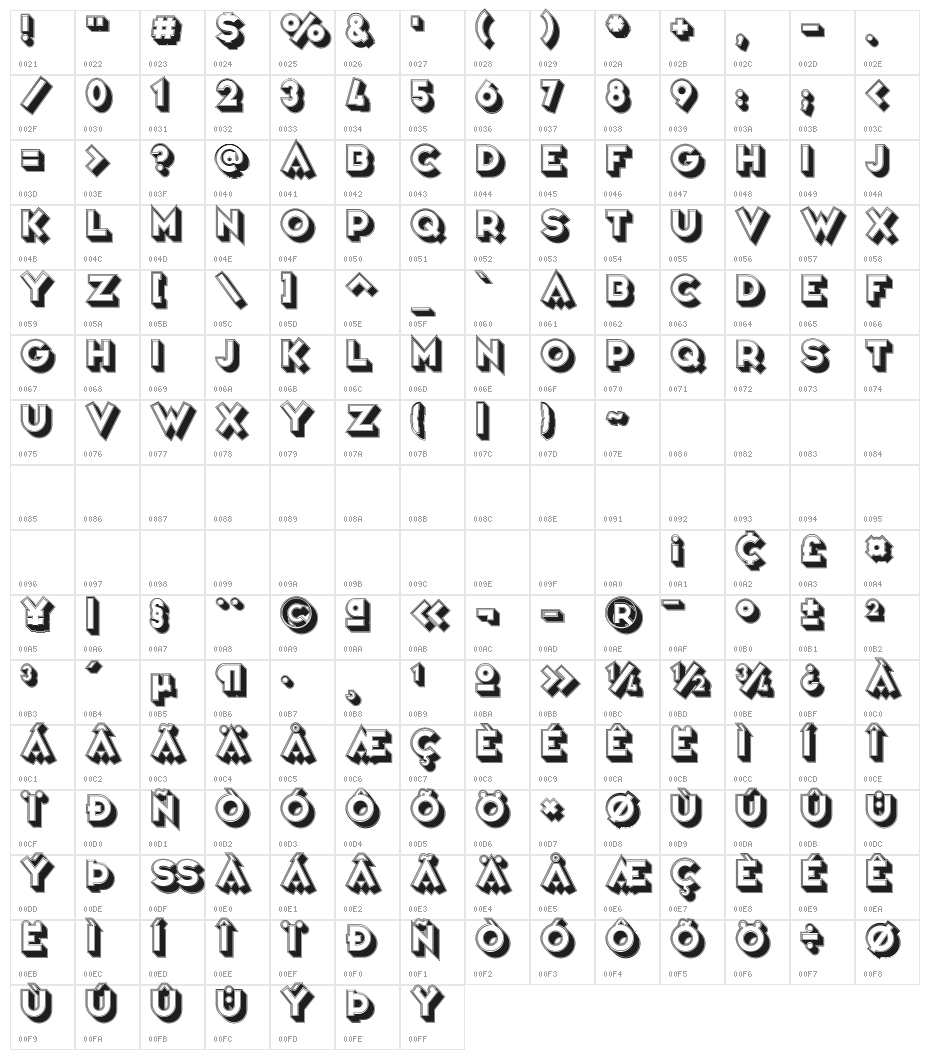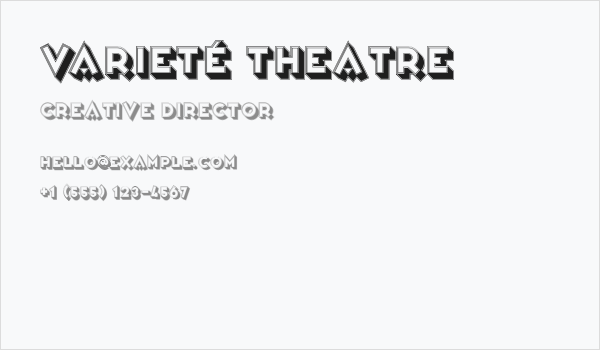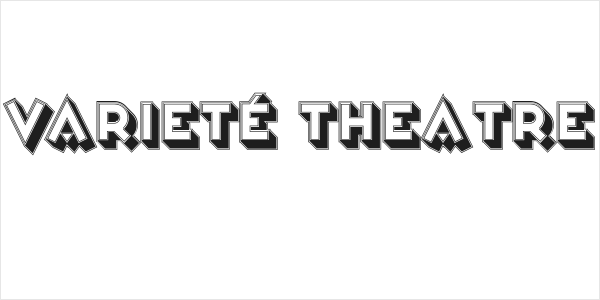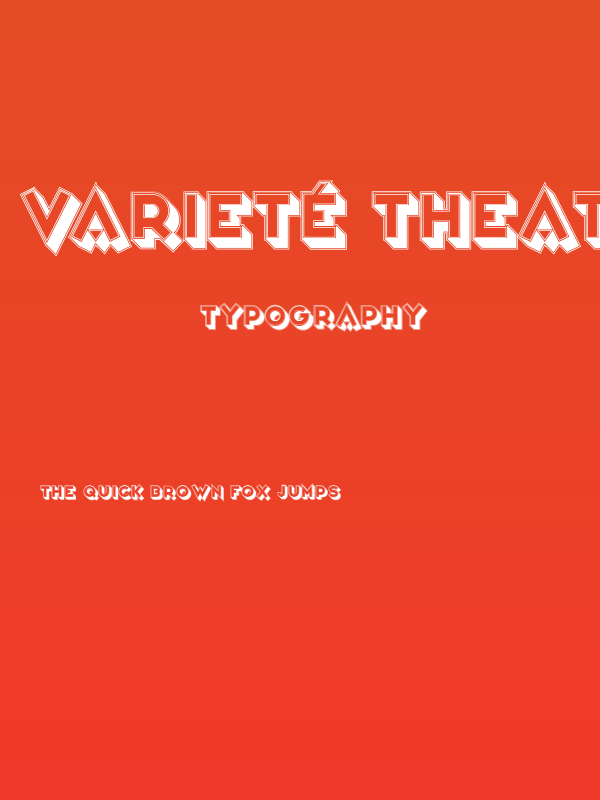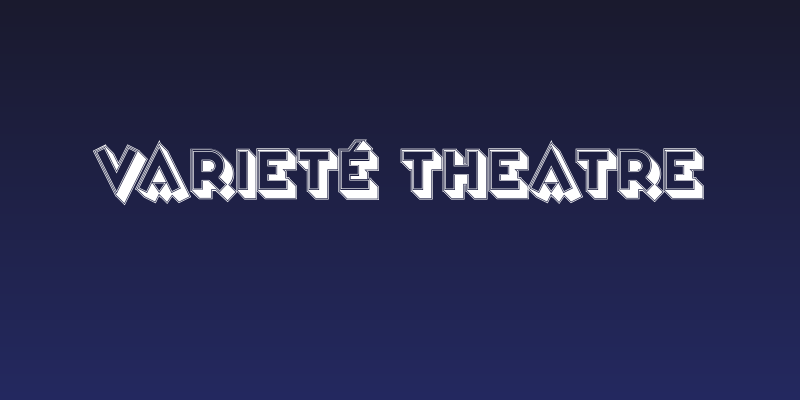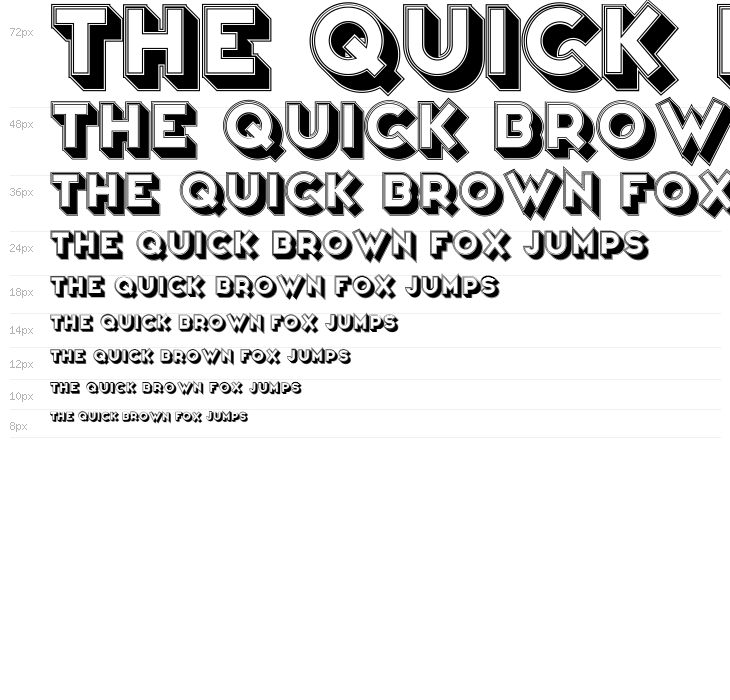
Varieté Theatre Font
Varieté Theatre Description
This font is a bold and striking display typeface with a three-dimensional effect, characterized by its shadowed, layered appearance. The letters are uppercase and feature a geometric, blocky style with sharp angles and clean lines. The font exudes a sense of drama and theatrical flair, making it ideal for eye-catching headlines and titles. Its unique design includes a bold outline and a contrasting inner fill, enhancing its visual impact. The numbers and special characters maintain the same bold, dimensional style, ensuring consistency across all elements.
| Proposed Projects | Ideal for posters, signage, theatrical productions, event promotions, and any project requiring a bold, attention-grabbing typeface. |